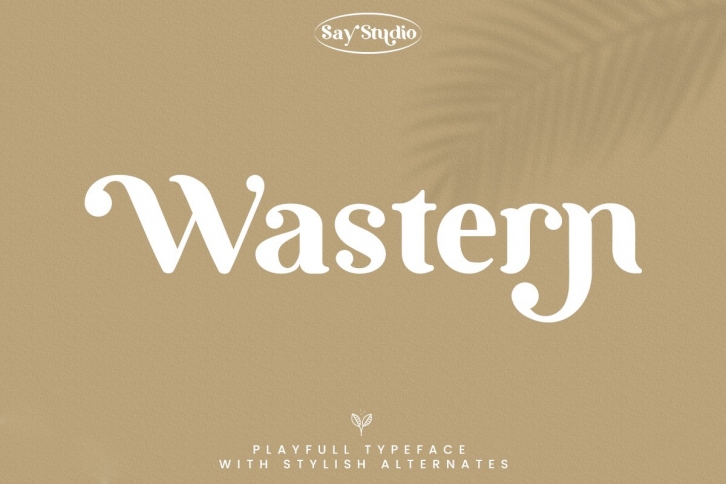
Wastern is a gorgeous font that was realeased on April 19, 2022. The font can be used in many style contexts and design environments. Perfect for invitations, magazines, websites, logos, and more! It was designed by Vermilione 99 and the file size is 5.36 MB. Thanks for checking out this font!